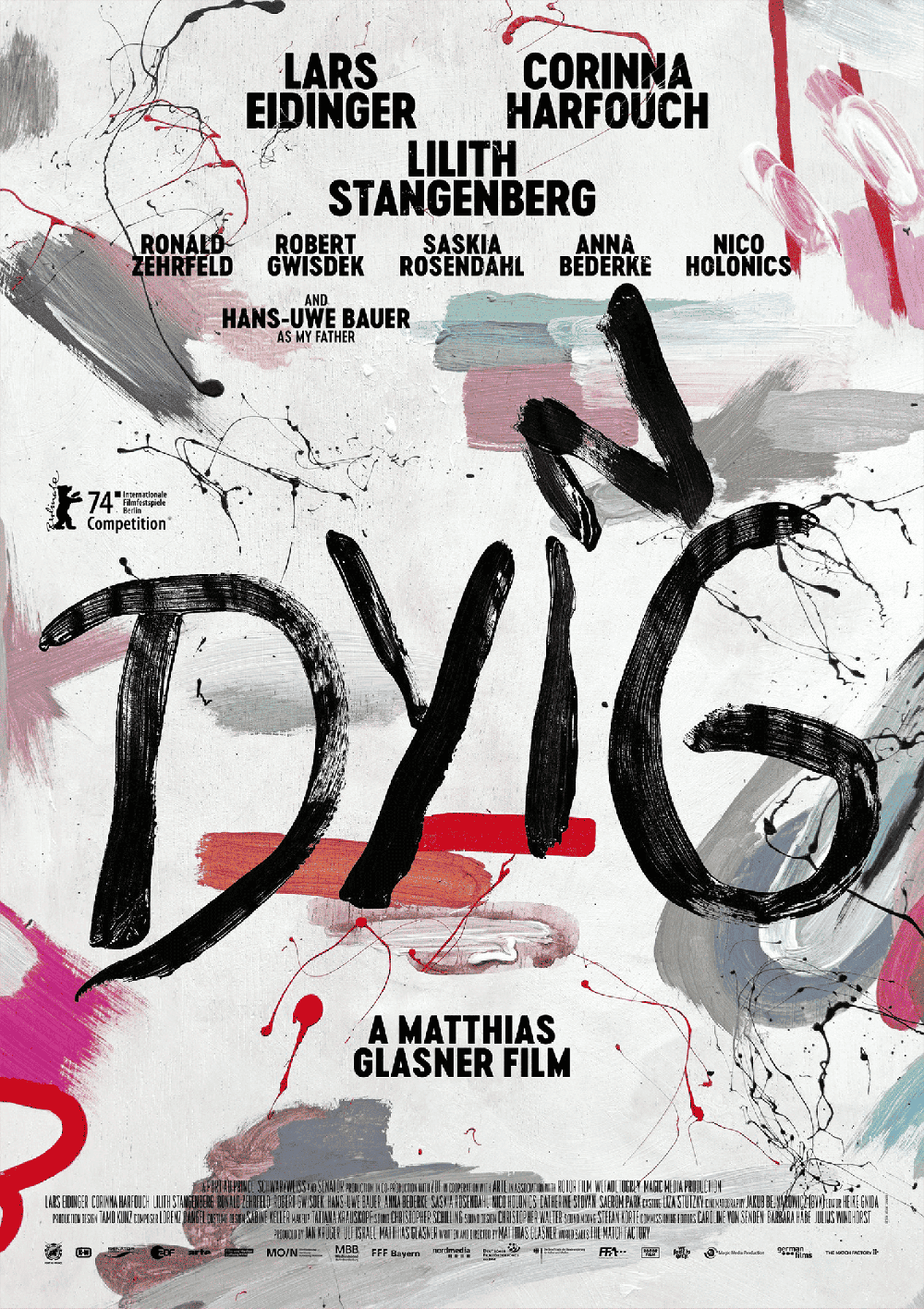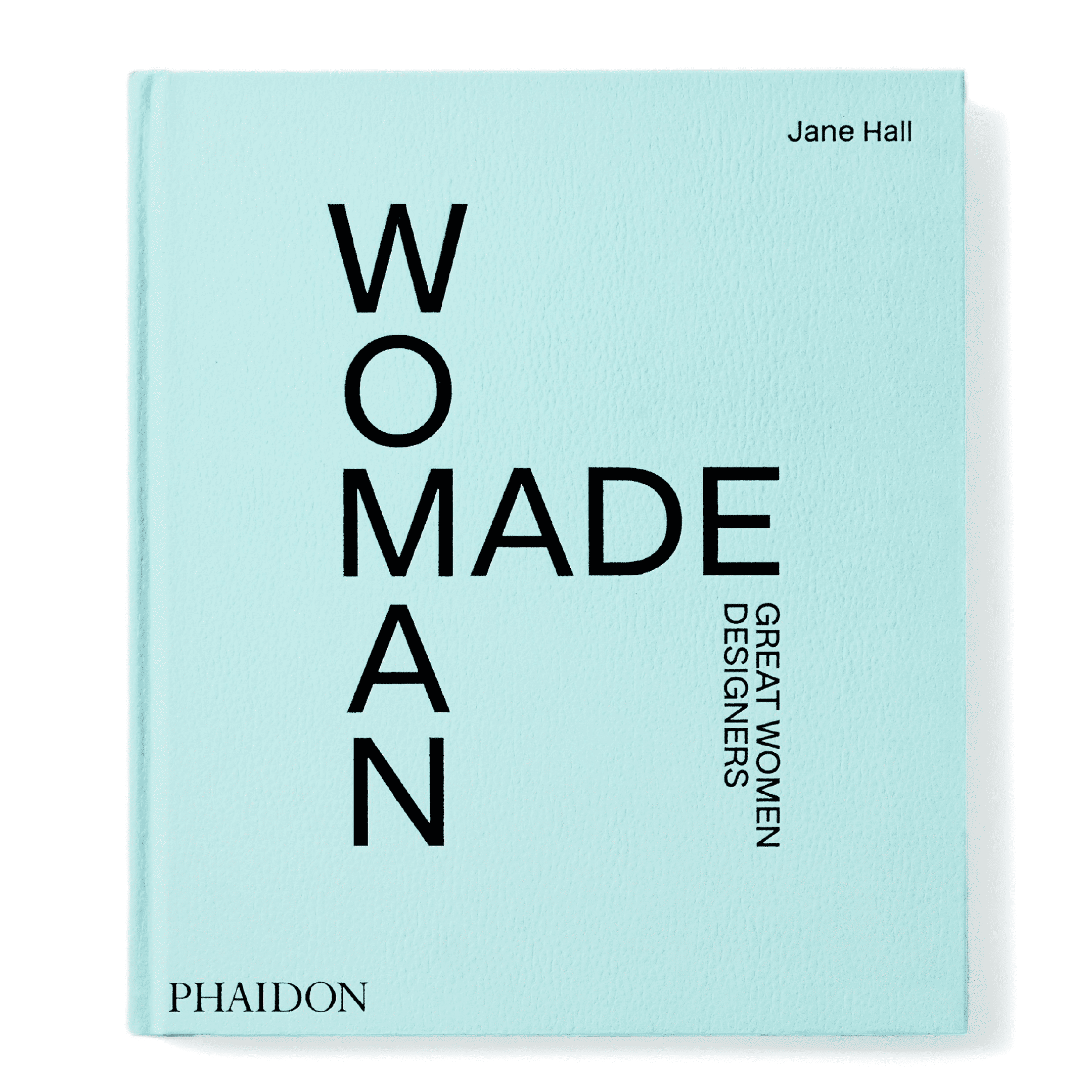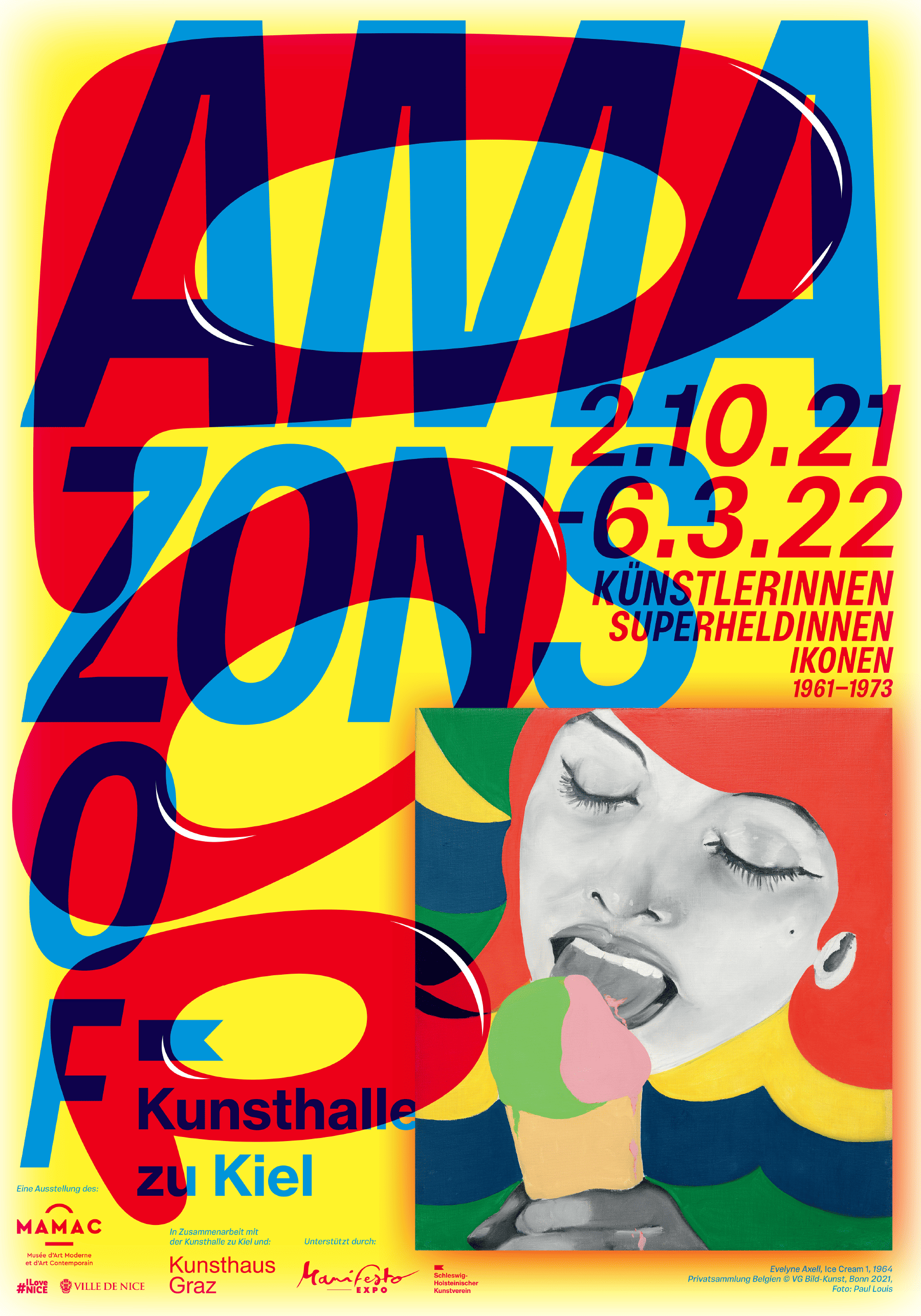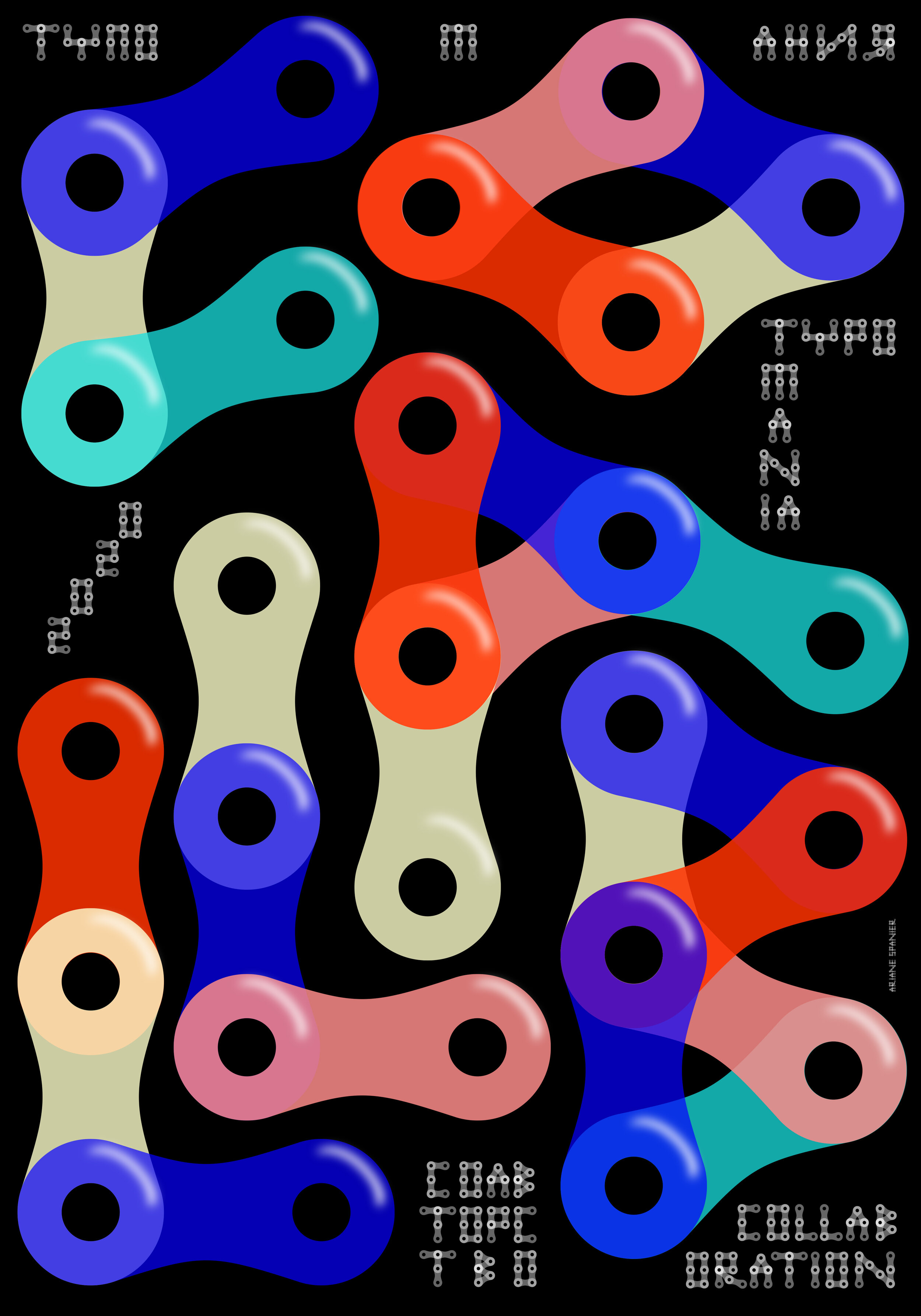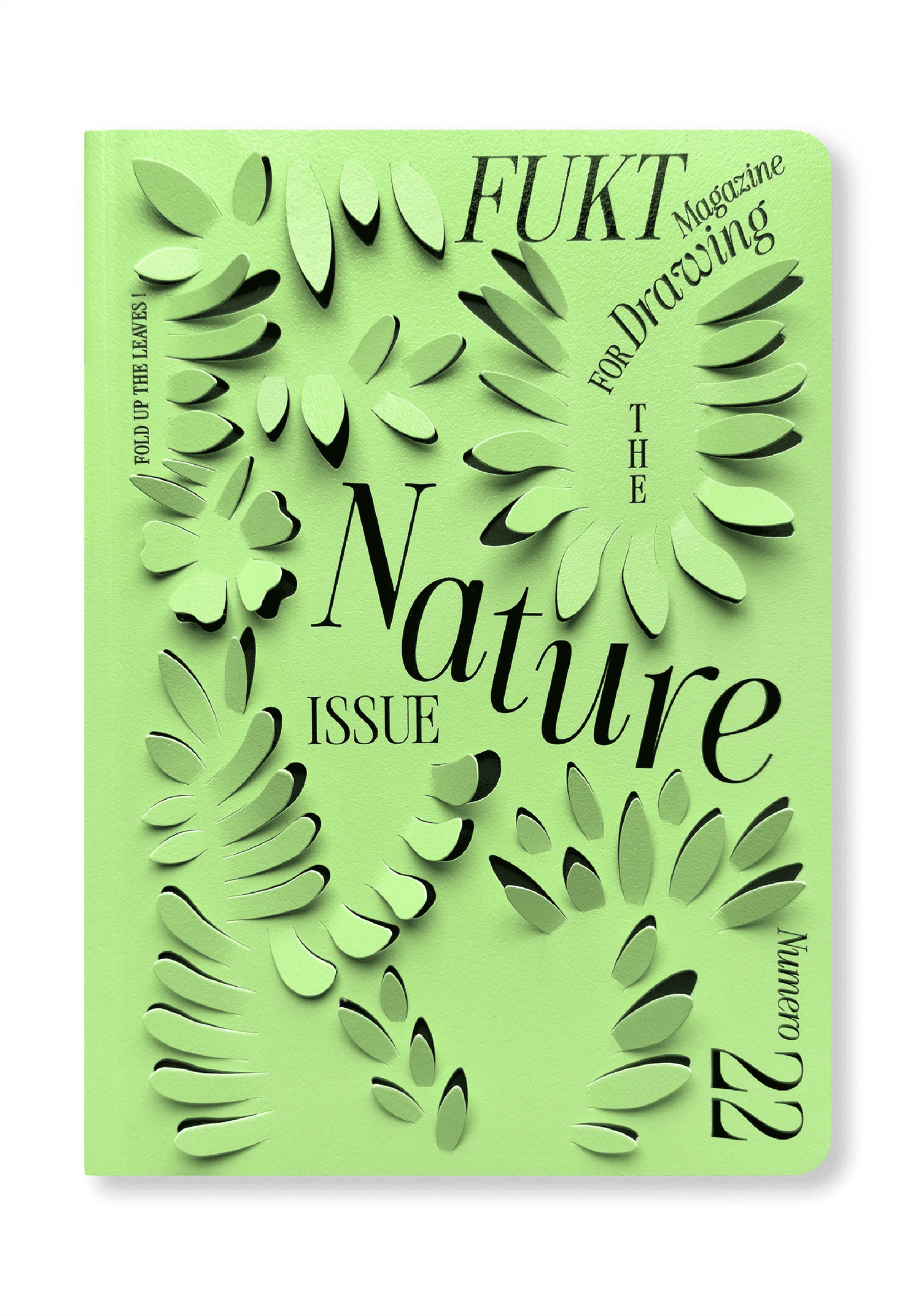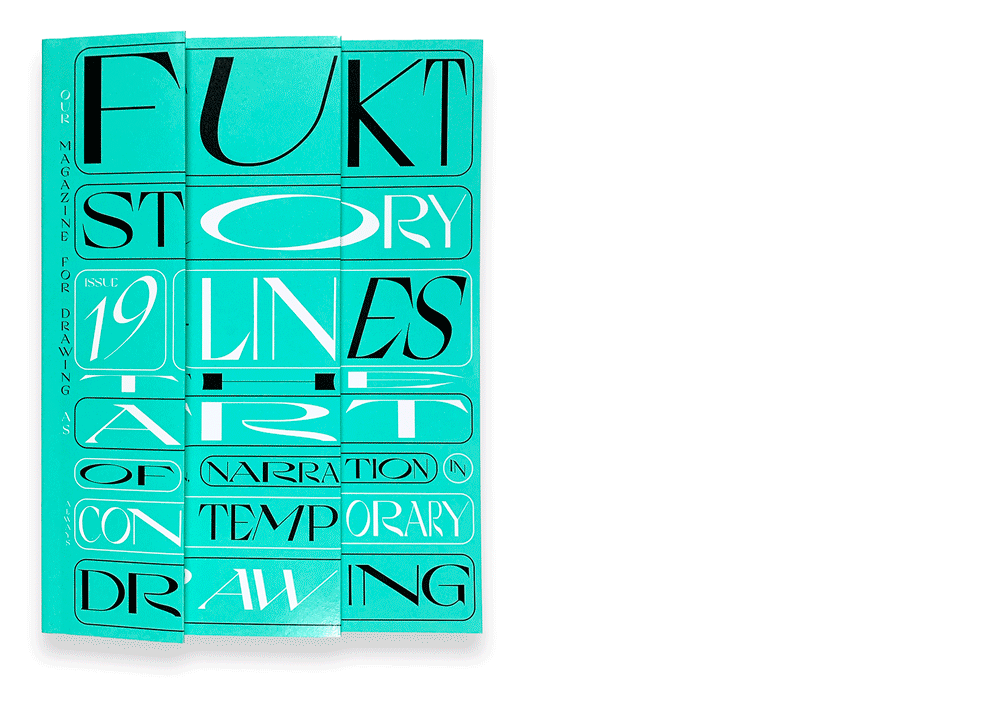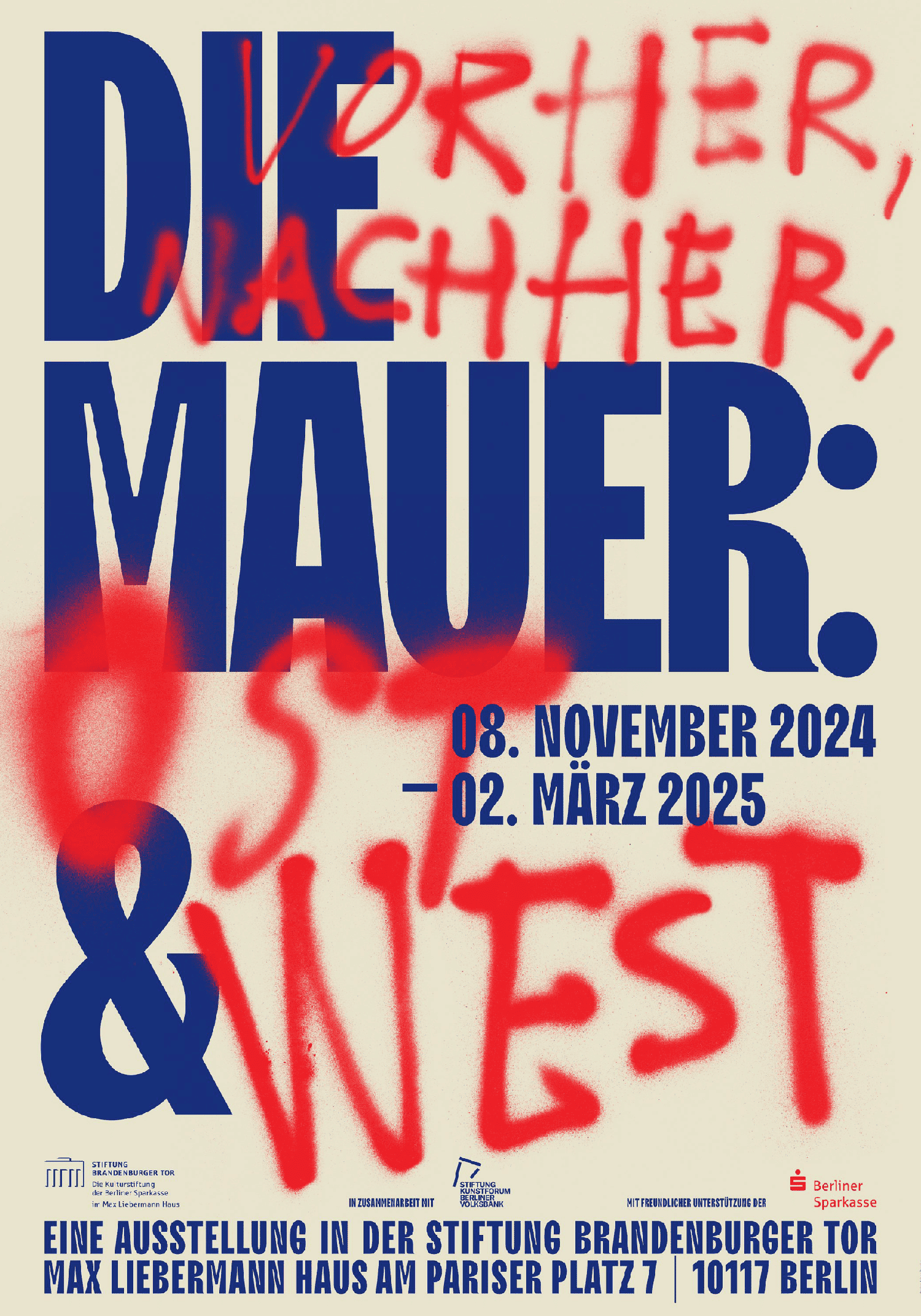
A talk about graphic design where the grid is optional and the tools are improvised. All things type, some large letters, and very few rules—chasing typography when it outgrows the page.
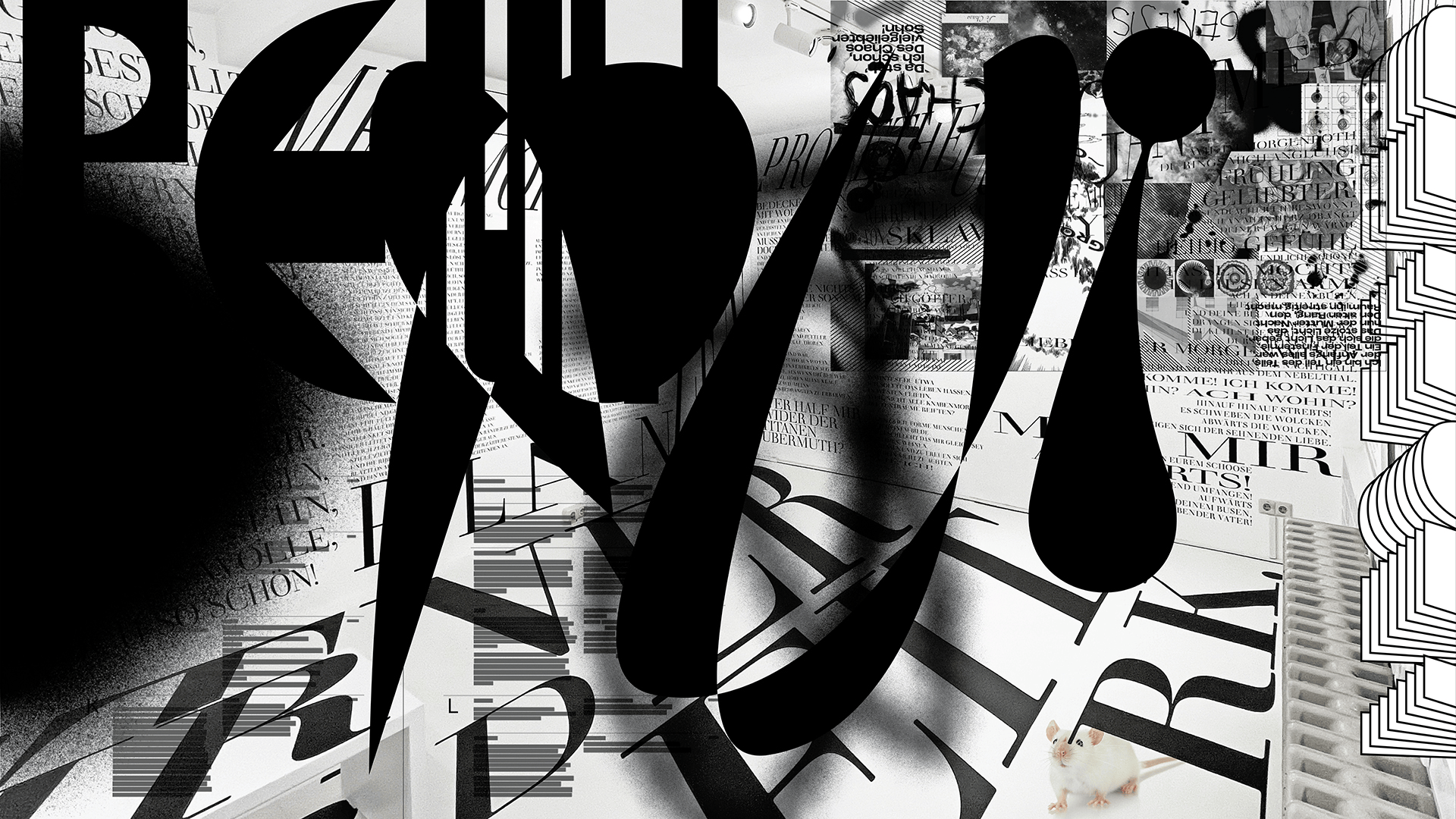
Ariane Spanier is a Berlin based graphic designer. Born in Weimar, Germany, she studied visual communication at the Art Academy Berlin-Weißensee. After a stay in New York she opened her studio in Berlin. Ariane Spanier works primarily with clients from the cultural sphere. The studio’s work ranges from the design of printed matter as books or posters to identities and digital design with a heavy focus on typography. Ariane is the creative director and co-editor of Fukt, an annual magazine for contemporary drawing. Her work has won many awards, including from the TDC New York and Tokyo, D & AD, Graphis, Stack Awards, ADC New York and Germany. Her work has been published in numerous magazines and design publications. She is a member of the international graphic design organisation AGI Alliance Graphique Internationale. Ariane Spanier lives and works in Berlin.